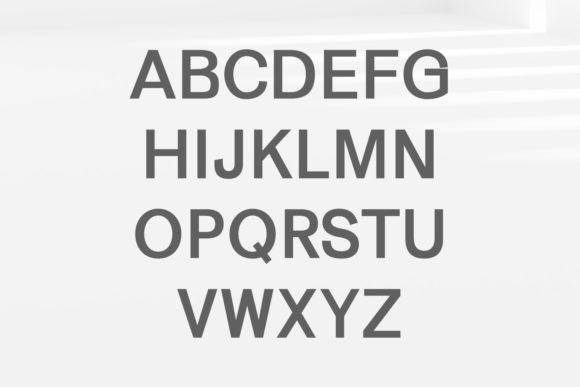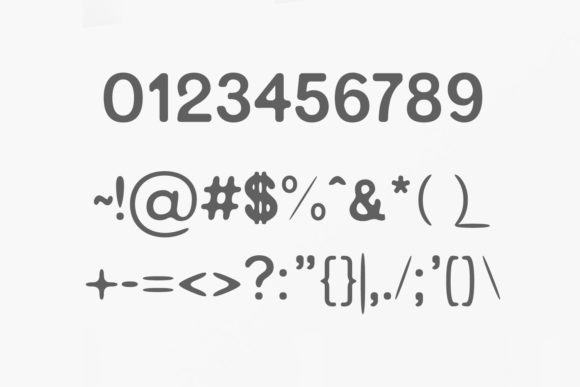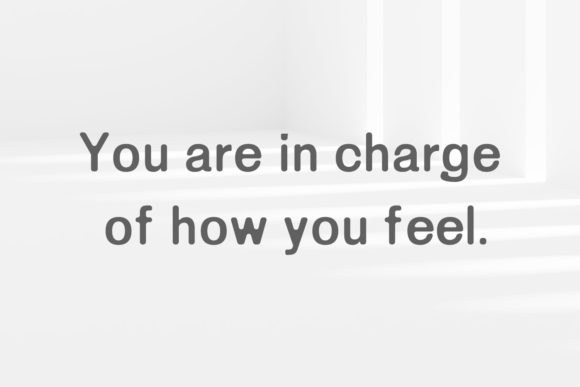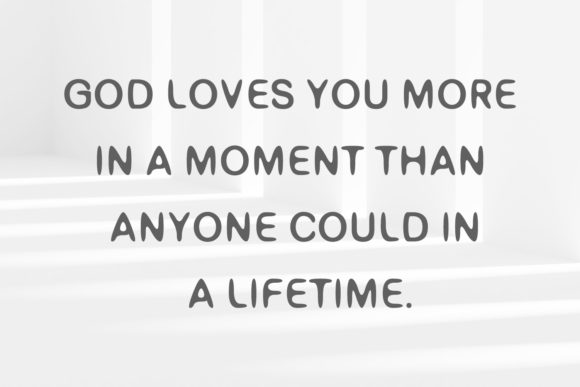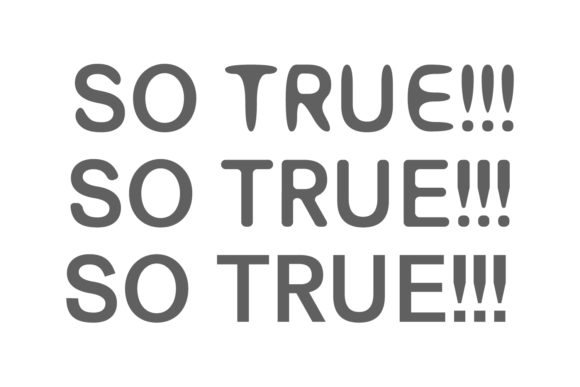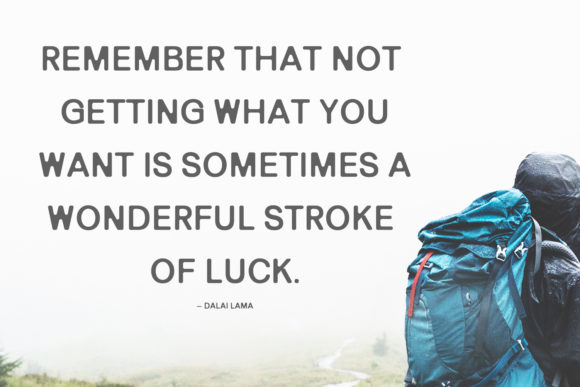
Introduction to Gerard Family Font
The Gerard is a minimalist creative rounded sans serif family that looks stunning in every context.
It contains 5 weight which is great for magazines, logos, invitations, text, presentations, posters, notices, titles, name card, web layouts, headers, branding, weddings, social media, product design, stationery and advertising, and much more .